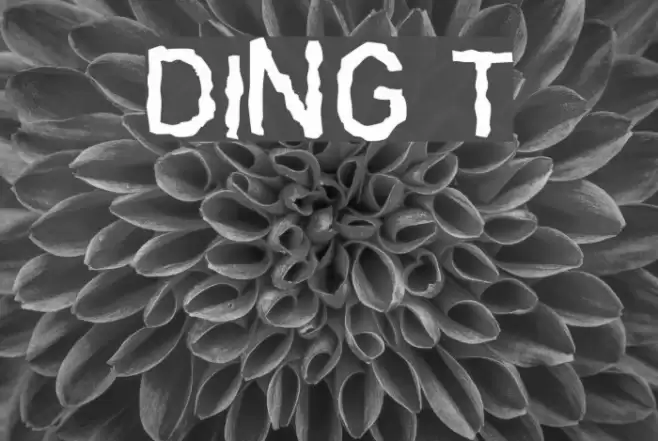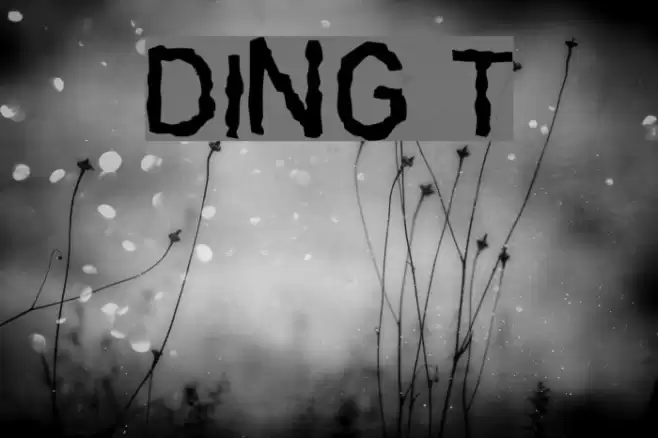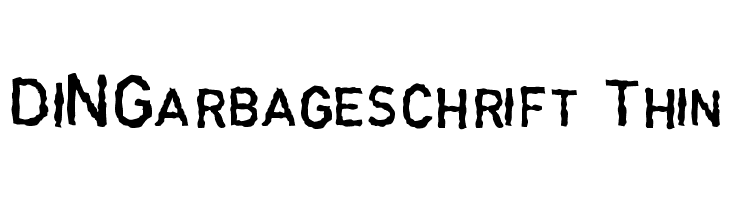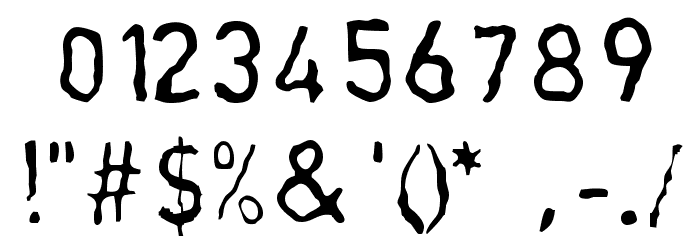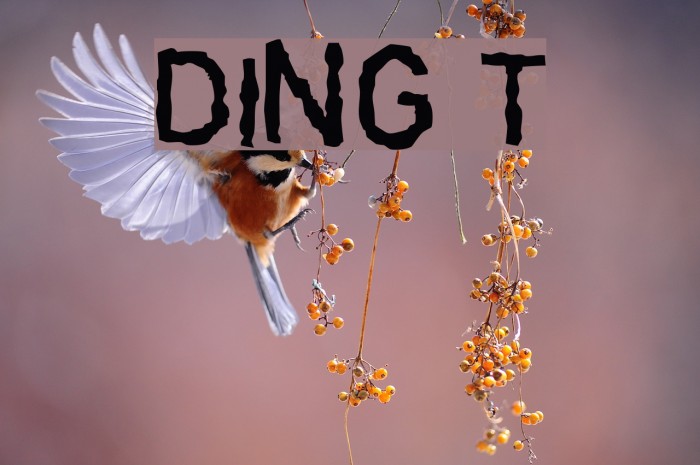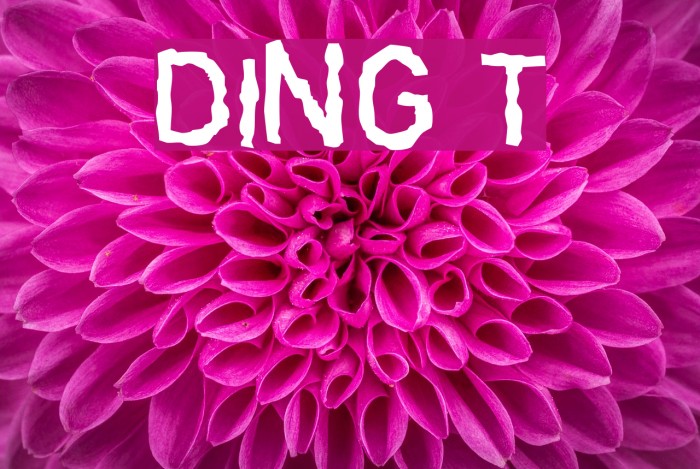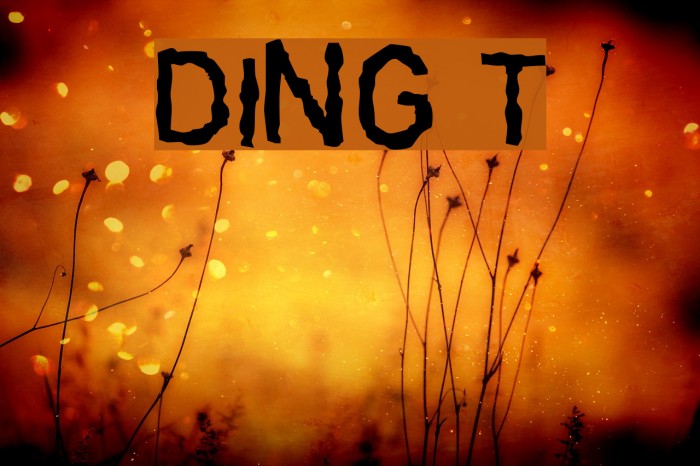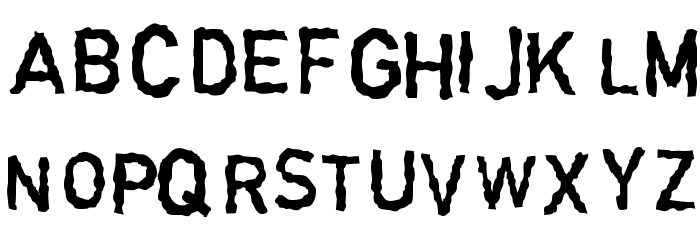
DINGarbageschrift Thin Font
DINGarbageschrift Thin Description
This font features a rugged, distressed appearance, reminiscent of hand-drawn or weathered text. The characters have an irregular, organic shape, giving them a unique and artistic quality. The rough edges and uneven lines create a sense of movement and texture, making it stand out as a distinctive choice for creative projects. The font maintains legibility while offering a bold, expressive style that captures attention. Its unconventional design is suitable for projects that require a touch of creativity and individuality.
A rugged, distressed font with an artistic, hand-drawn appearance from Uncategorized fonts.
- Proposed Projects: Ideal for posters, album covers, artistic projects, and branding that seeks a unique, edgy look.
- Use Case: Headlines, Logos, Artistic projects